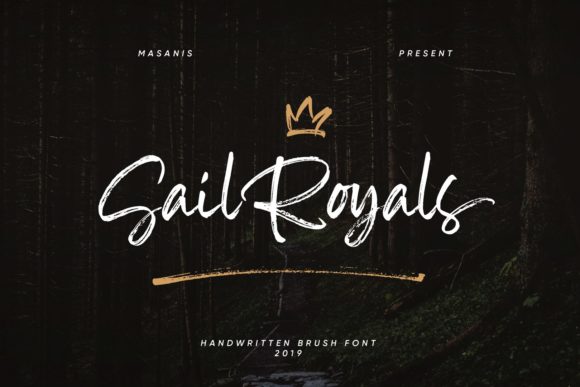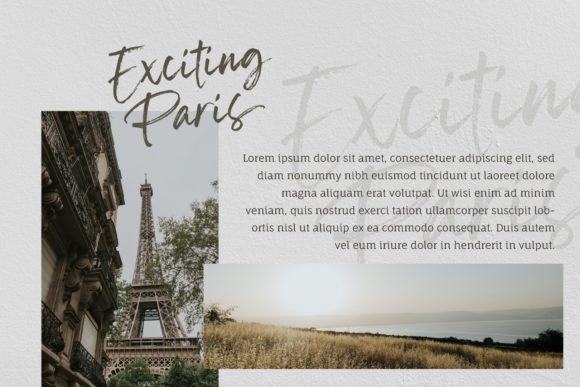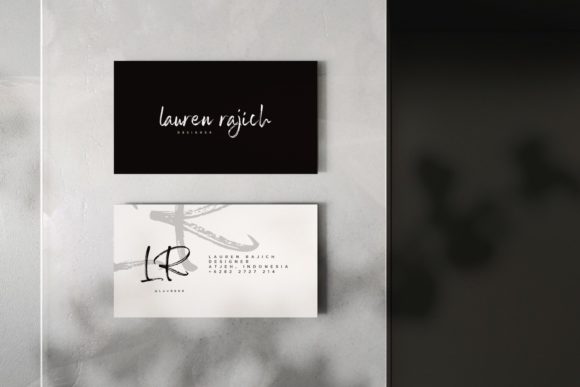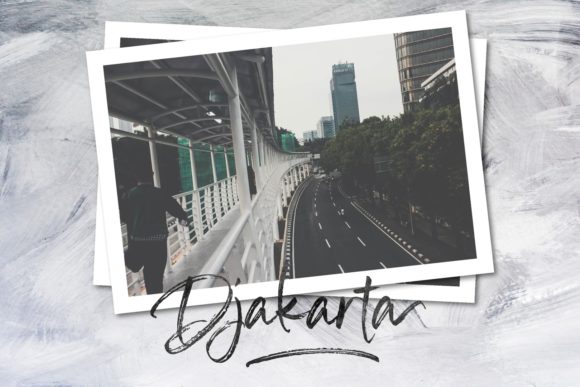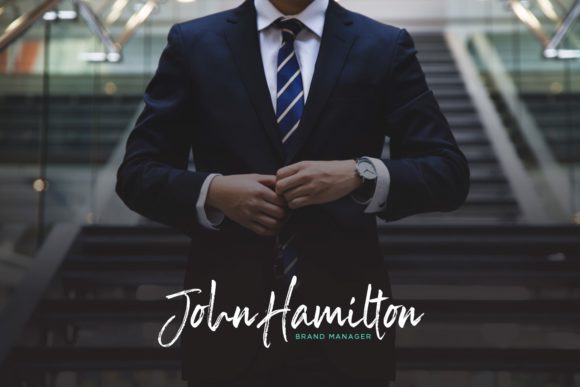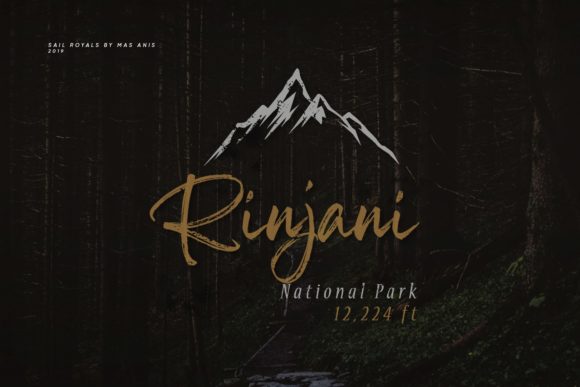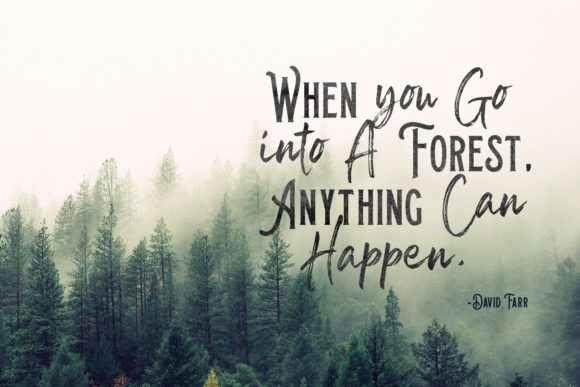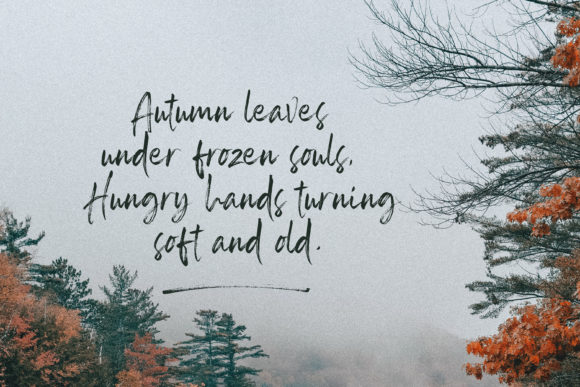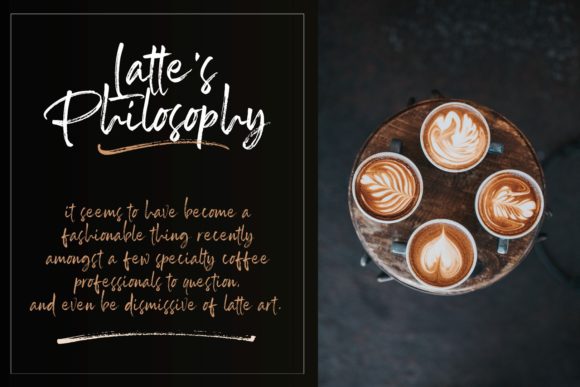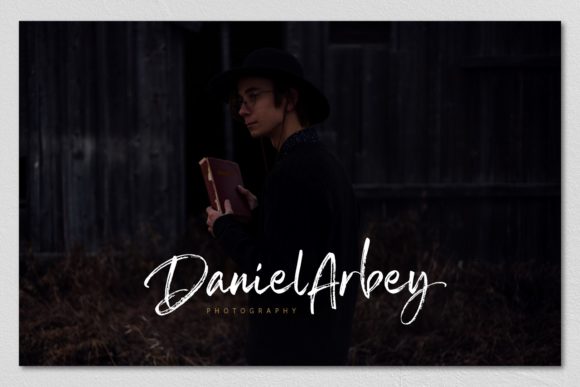
Sail Royals Font
About Sail Royals Font
Made with a brushpen on real paper, Sail Royals is a one-of-a-kind handwritten font! Its signature style is perfect for adding an authentic spark to any design project.